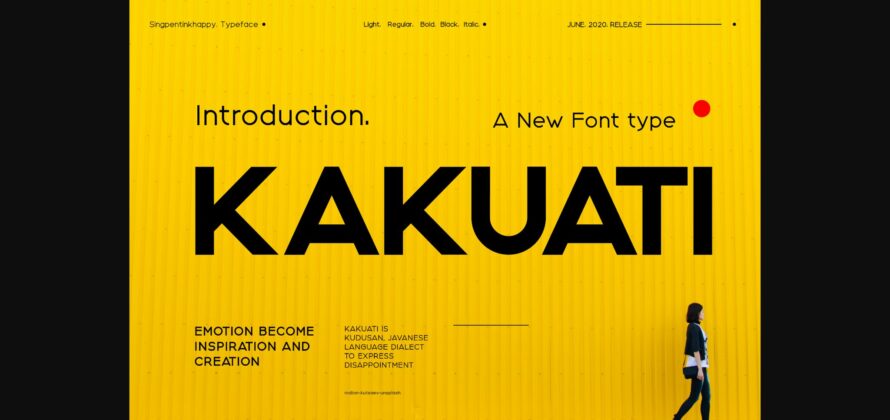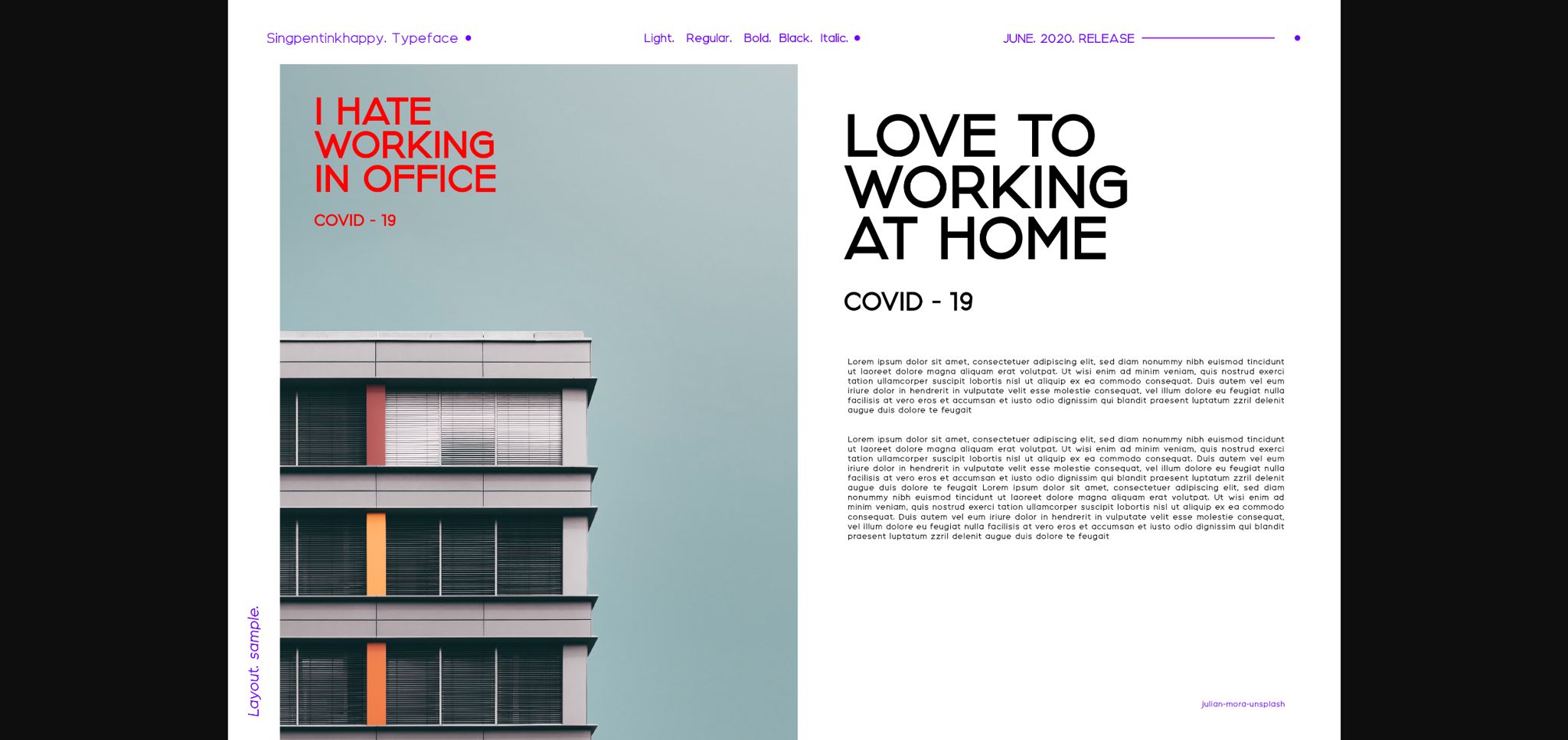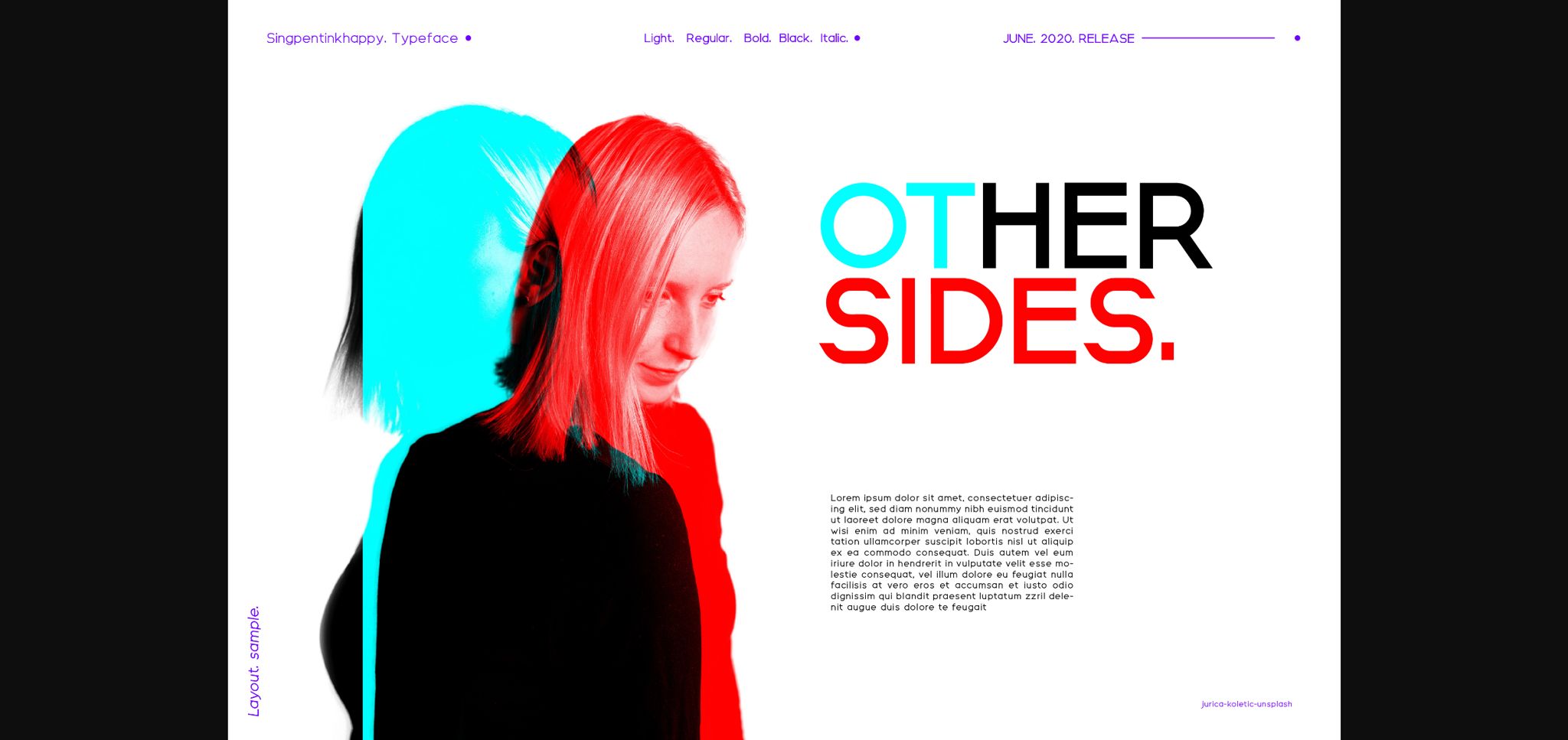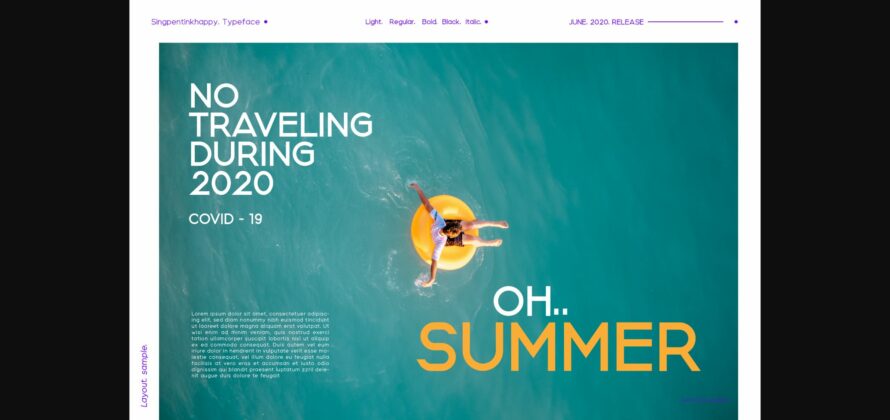
Kakuati Font
About Kakuati Font
Kakuati is a minimalist and strong sans serif font. It will look amazing in magazines, social media posts, flyers, headlines and much more!